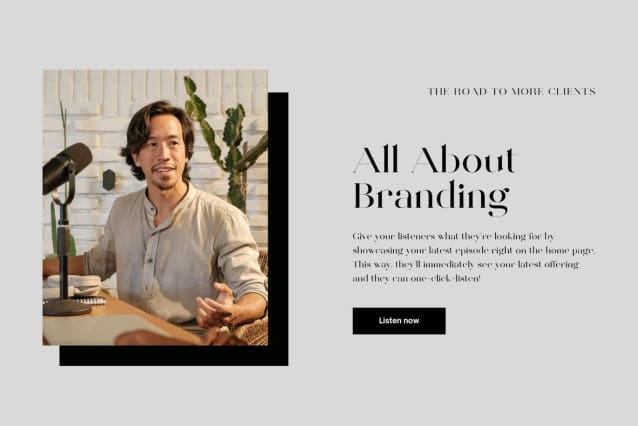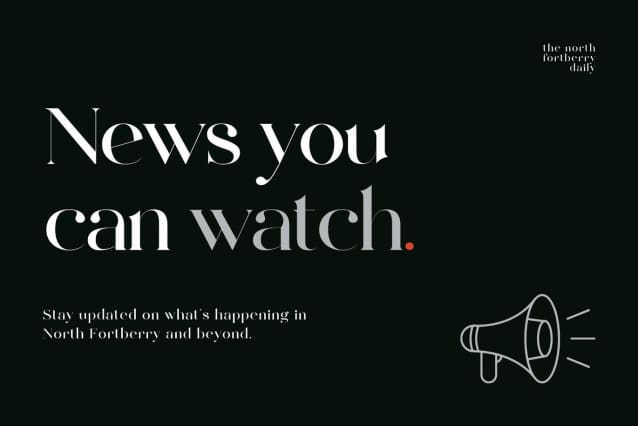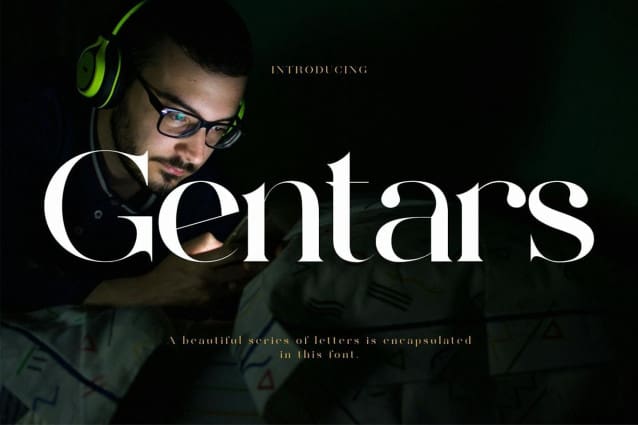
Gentars Font
Gentars Font, a beautiful series of letters is encapsulated in this “Genttars” font. The neat lettering is perfect for modern, eye-pleasing writing needs. It gives a modern feel while remaining stylish when used for writing. Cleanliness when making each letter is our top priority. You can have fun and get creative using this font product we created because the results will definitely be very satisfying.